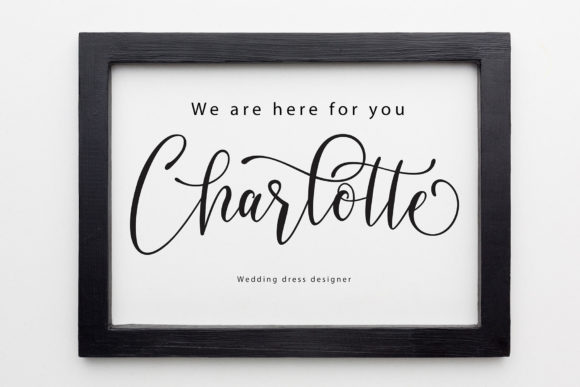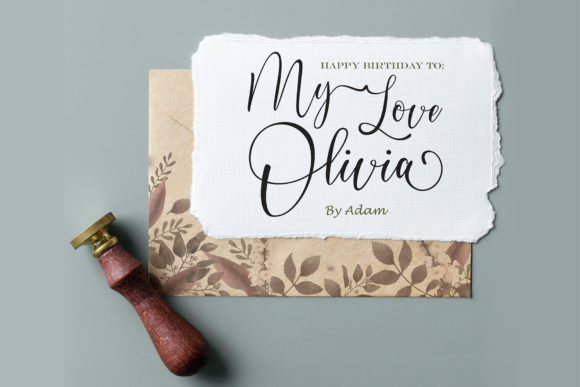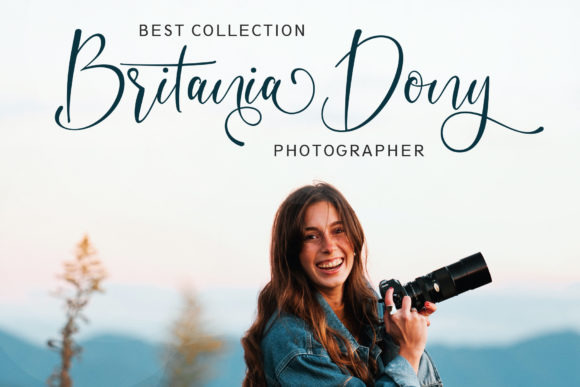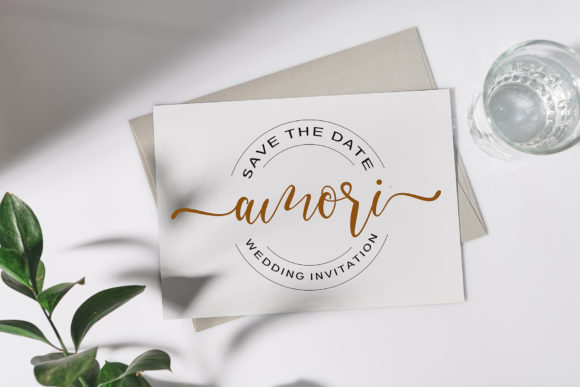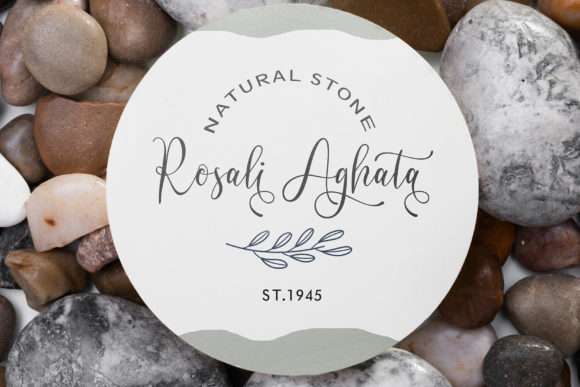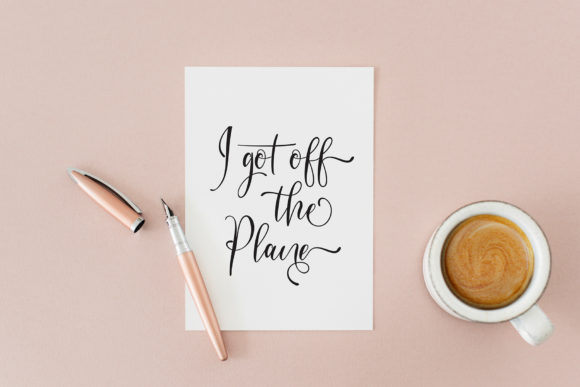
Bolivia Font: Elevate Your Designs with Elegance and Personality
In the world of typography, a font can make or break a design. For those seeking a unique and elegant handwritten touch, the Bolivia font is an exceptional choice. This beautiful font is perfect for adding a personalized style to various designs, including wedding invitations, thank you cards, weddings, greeting cards, logos, and more.
The Charm of Bolivia Font
Bolivia is a meticulously crafted handwritten font that exudes elegance and sophistication. Its unique charm lies in its flowing lines, delicate strokes, and whimsical flair, making it an ideal selection for designers and crafters who want to add a touch of personality to their work.
One of the standout features of the Bolivia font is its versatility. It can be used across a wide range of design projects, from:
- Thank you cards and greeting cards
Its adaptability makes it a valuable addition to any designer’s toolkit.
Bolivia font is PUA (Private Use Area) encoded, which means that accessing all glyphs and swashes is a breeze. This feature allows designers to:
- Easily access alternative characters and swashes
- Customize and experiment with different design combinations
- Save time and effort in the design process
The Bolivia font offers numerous benefits for designers and crafters, including:
- Unique and personalized designs: Add a touch of elegance and sophistication to your work
- Ease of use: PUA encoding makes it simple to access and use glyphs and swashes
- Time-saving: Quickly create stunning designs without tedious formatting
Tips for Using Bolivia Font
To get the most out of the Bolivia font, consider the following tips:
- Experiment with different sizes and colors: Find the perfect combination to match your design style
- Pair with complementary fonts: Create a harmonious and visually appealing design
- Use swashes and glyphs creatively: Add a personal touch to your designs and make them stand out
The Bolivia font is an exceptional choice for designers and crafters seeking a unique and elegant handwritten font. With its versatility, PUA encoding, and ease of use, it’s perfect for adding a personalized touch to various design projects. Whether you’re working on wedding invitations, logos, or social media graphics, the Bolivia font is sure to elevate your designs and make them truly unforgettable.